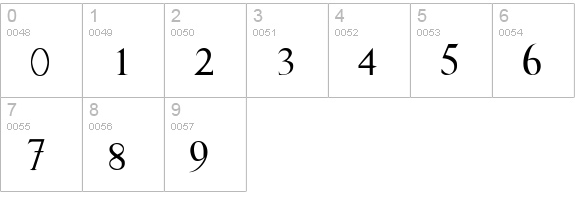
FrankTimes Font Details
FrankTimes font is a classic and elegant typeface that exudes sophistication and charm. Its timeless design makes it perfect for various design projects, from invitations to branding materials. With its clean lines and sharp serifs, FrankTimes font is sure to make a statement and leave a lasting impression. What's even better is that FrankTimes font is available for free download at FontsMarket.com. This means you can easily access this stylish font and use it in your projects without any cost. Whether you're a designer looking to add a touch of class to your work or a business owner wanting to elevate your brand, FrankTimes font is a versatile and budget-friendly option. Download it today and see how this font can elevate your designs to the next level.